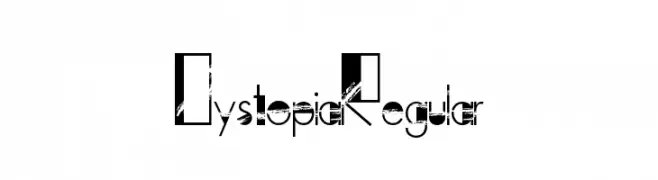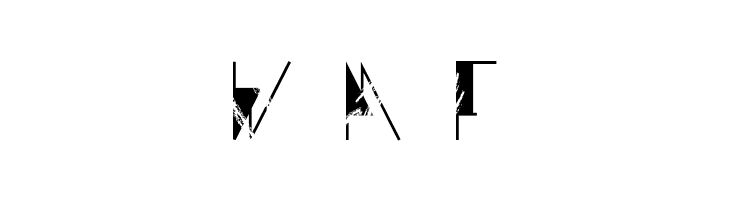
A modern, unicase font with elongated, narrow characters and consistent stroke width.
( Fonts by Graham Meade - GemFonts )
A bold, superwide font with a modern and uniform design.
( Fonts by Graham Meade - GemFonts )
A tall, narrow, and quirky font with a hand-drawn feel.
A modern, tall, and narrow font with clean lines and minimal curves.
A modern, tall, and narrow unicase font with a sleek design.
A bold, italicized font with elongated, condensed letterforms and a modern feel.
( Fonts by Graham Meade - GemFonts )